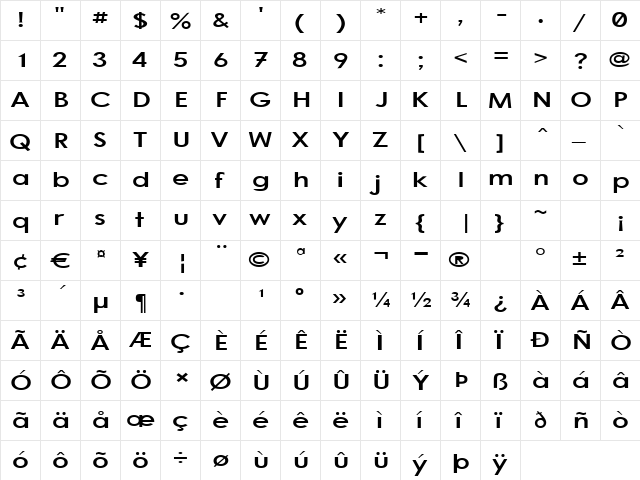
Bog Standard Regular
Bog Standard takes a measured approach to typography — its balanced proportions and neutral character make it a reliable workhorse for both digital and print work.